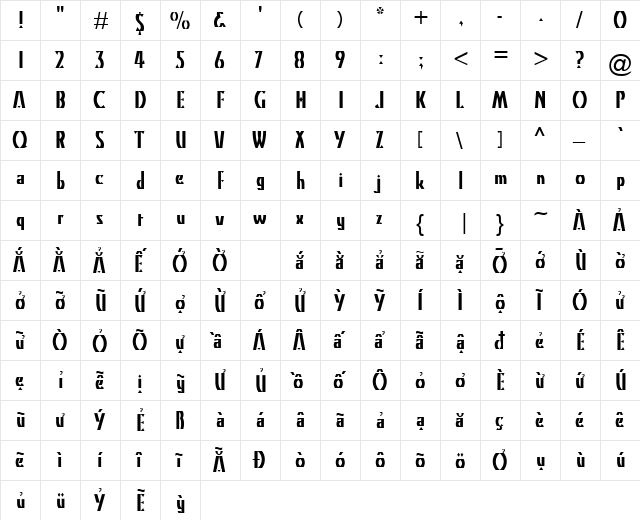
VPS Ha Tien Regular Font Preview
VPS Ha Tien Regular
Design Context for VPS Ha Tien Typeface
VPS Ha Tien is a composed and adaptable typeface that performs quietly and consistently across a wide range of design contexts.